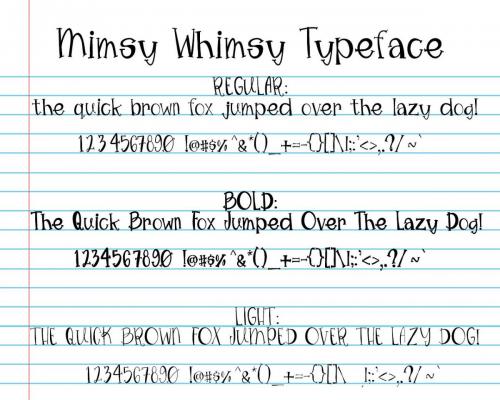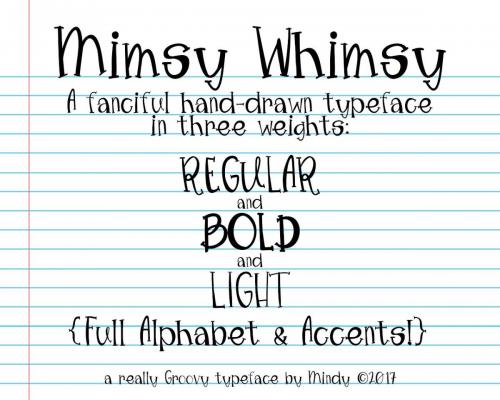
Mimsy Whimsy Typeface Font
Mimsy Whimsy Typeface Font is a fun fanciful font perfect for invitations, t-shirts, and much more, designed by Groovyjournal. You can use this font for personal purpose.